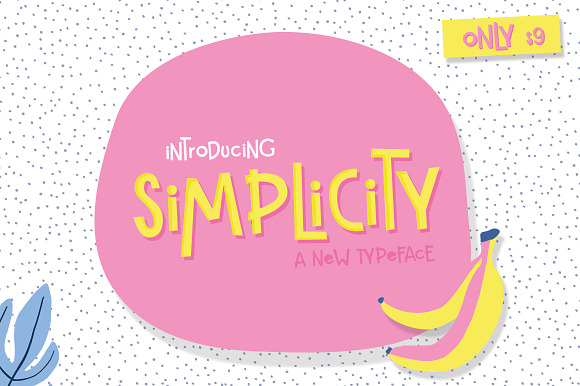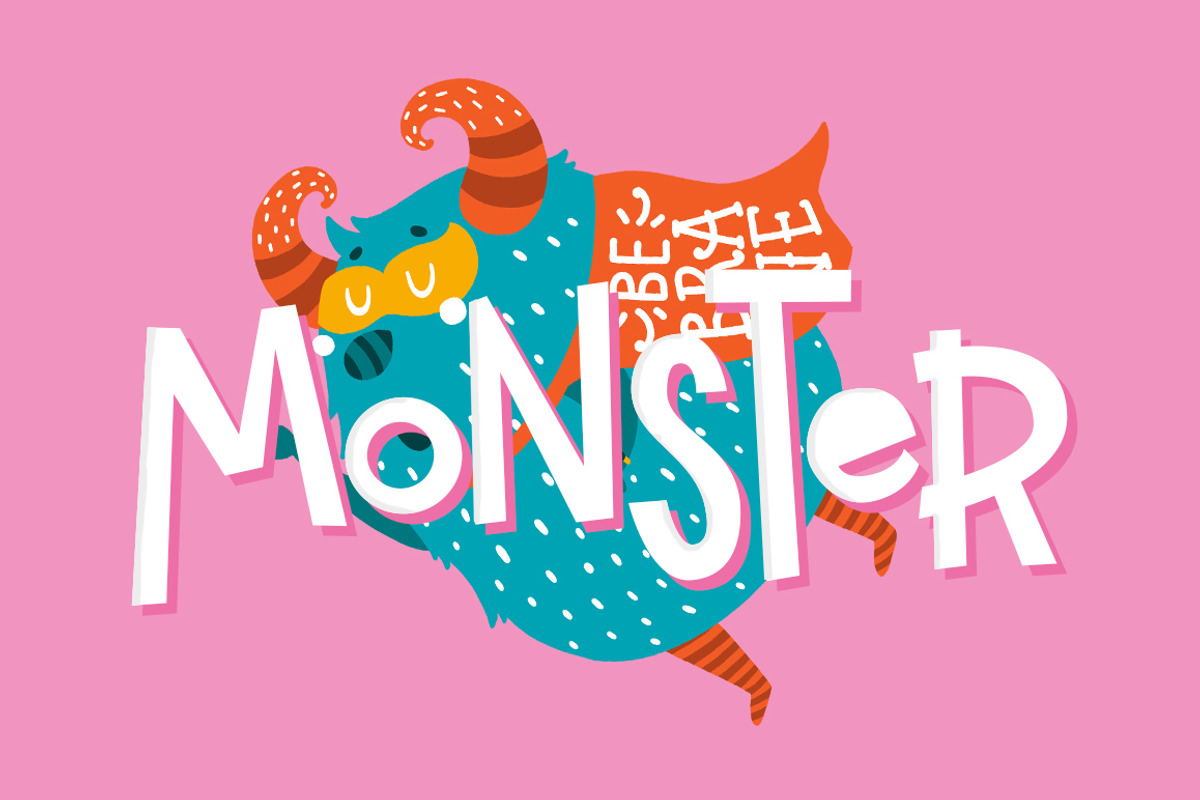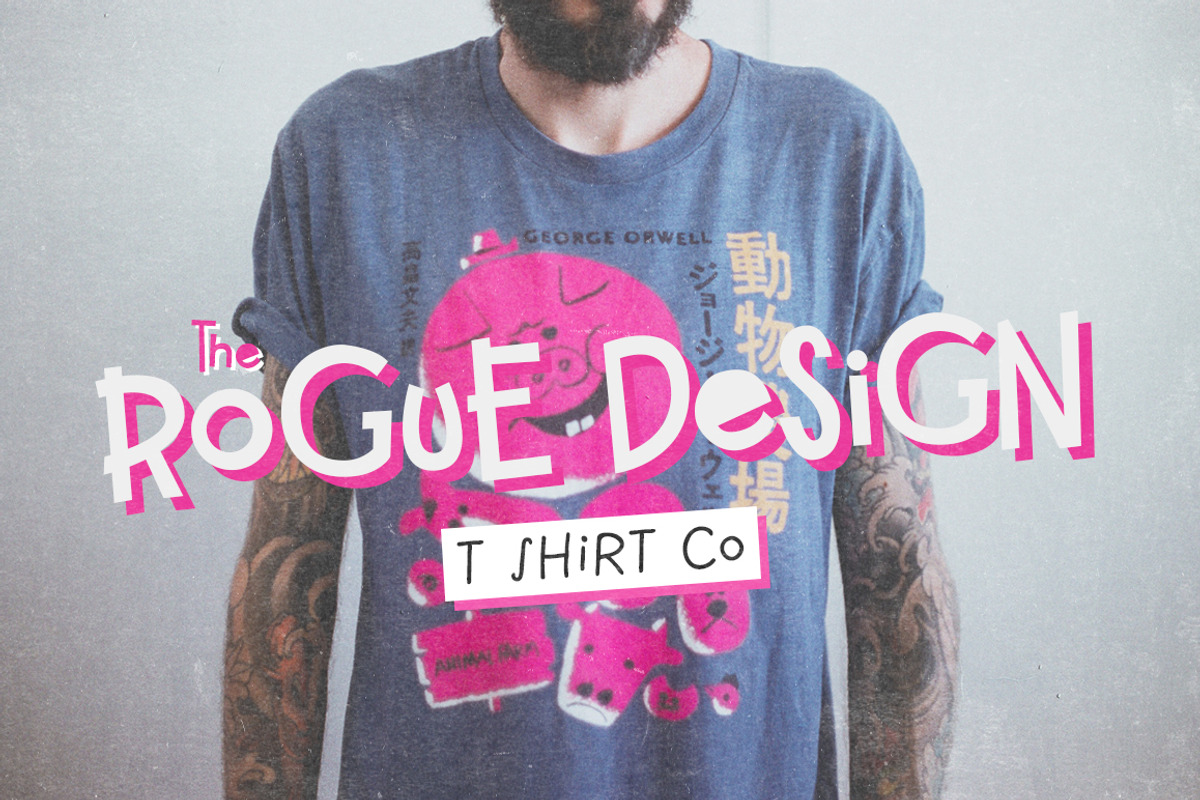
Simplicity Font
Simplicity is a new font that is far from simple, yet has an air of grace about itself. It can stand alone as a knock-out font but does work well with others, it really is that simple!
Why Simplicity Font is worth a look
Simplicity Font by Salt & Pepper Designs fits naturally into Branding, posters, packaging, typography.